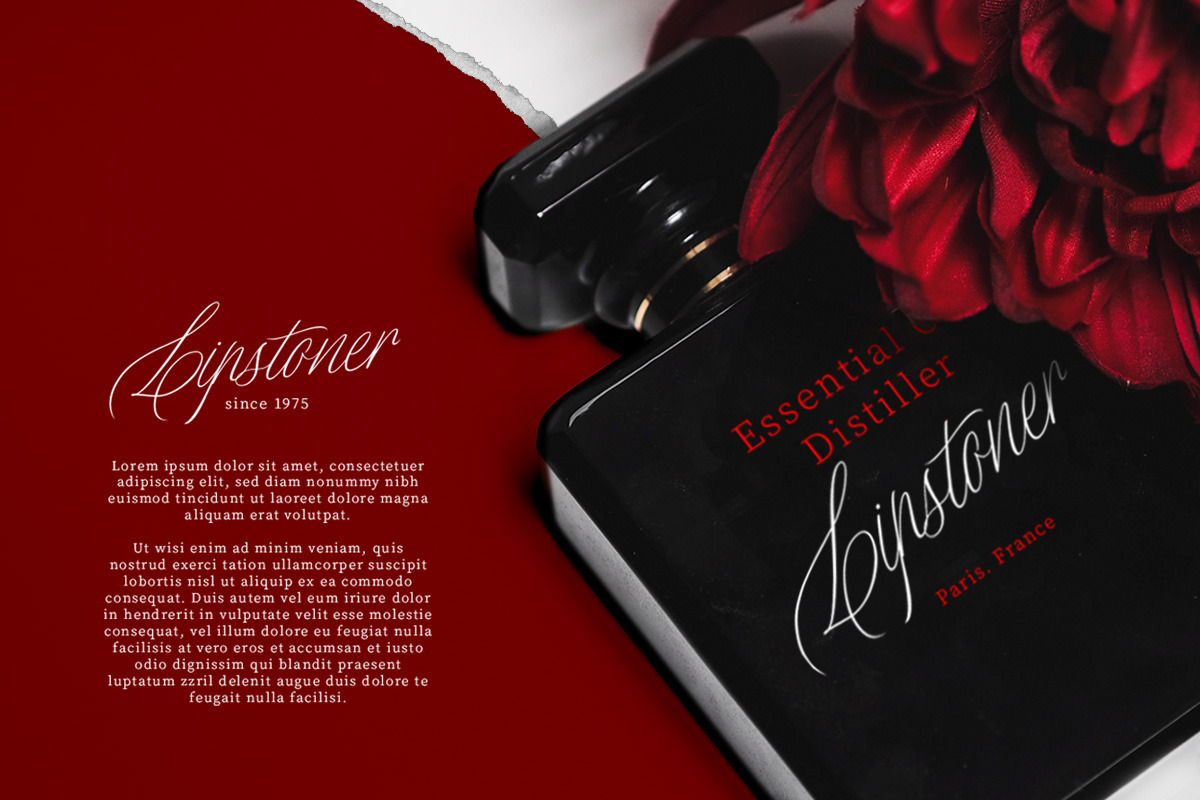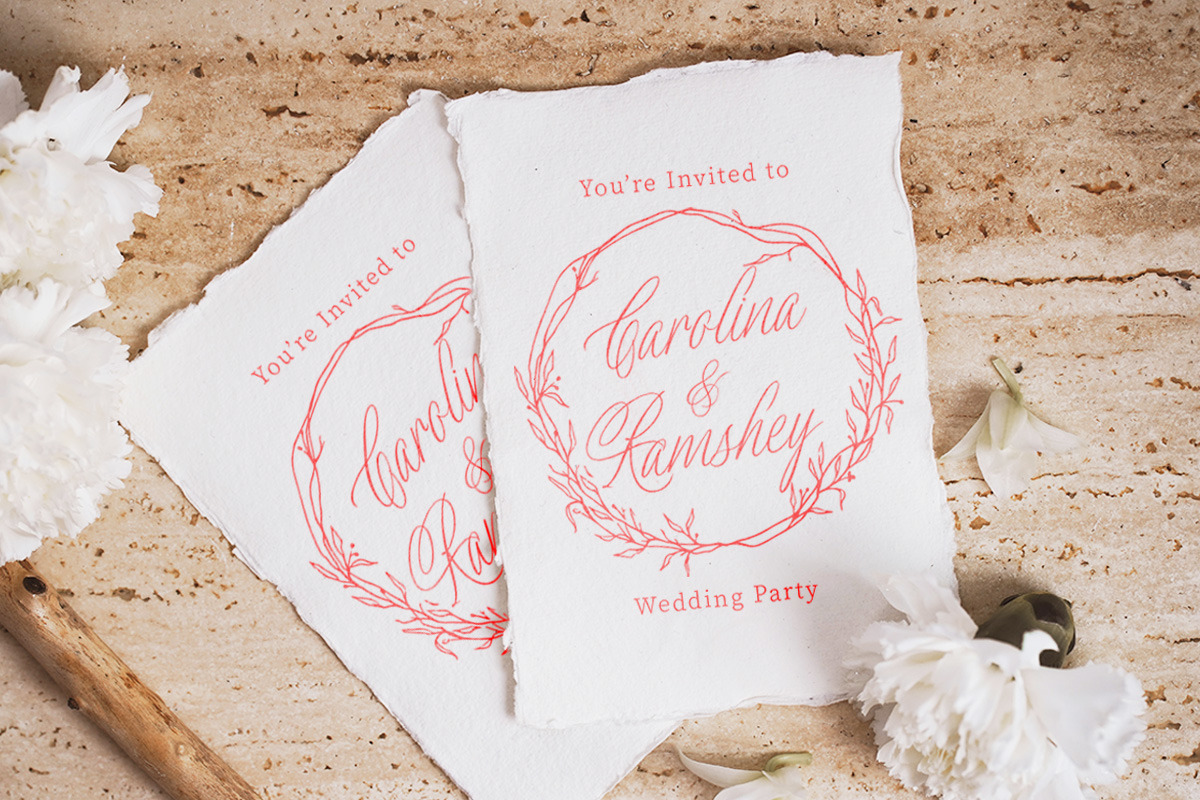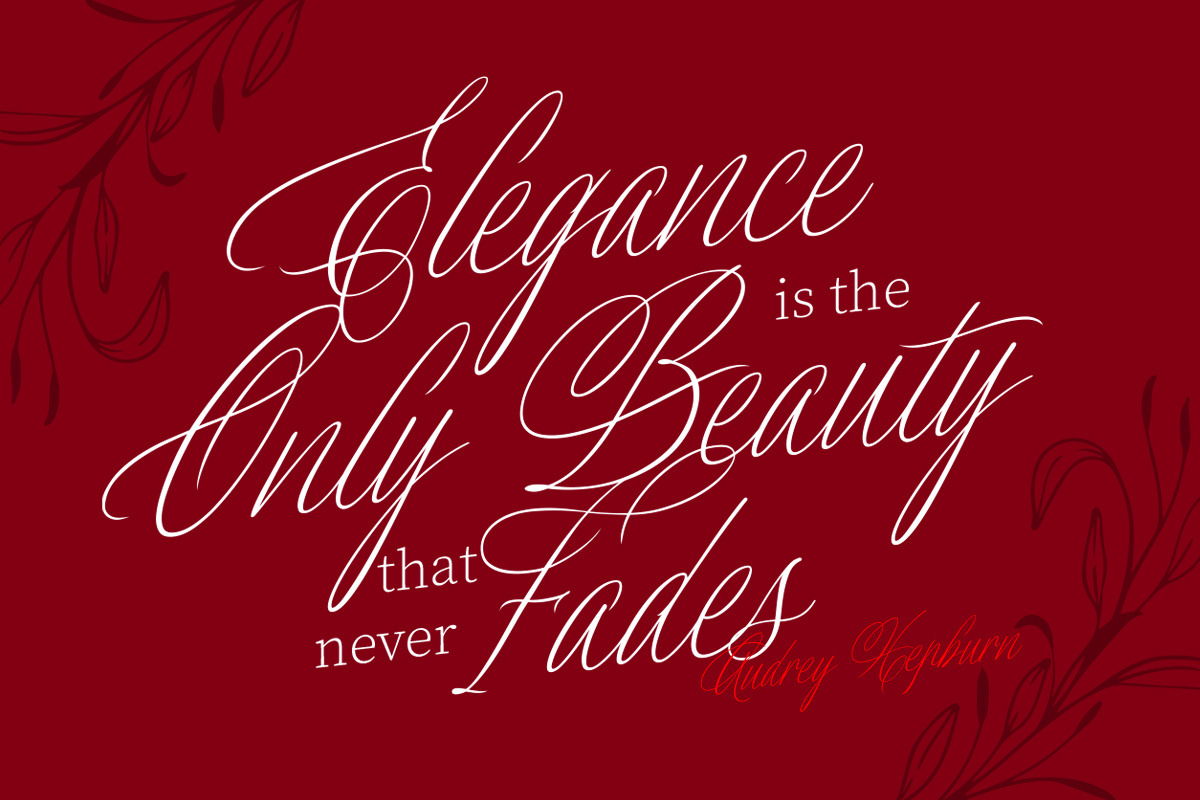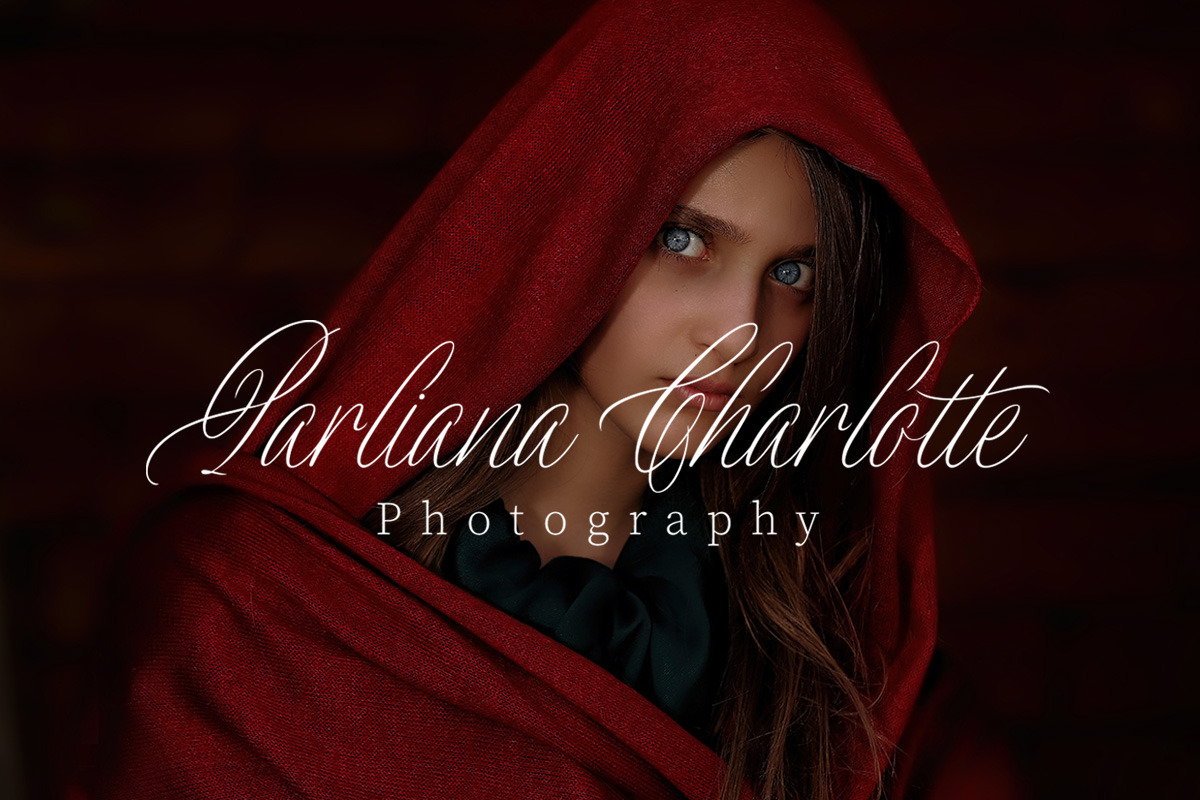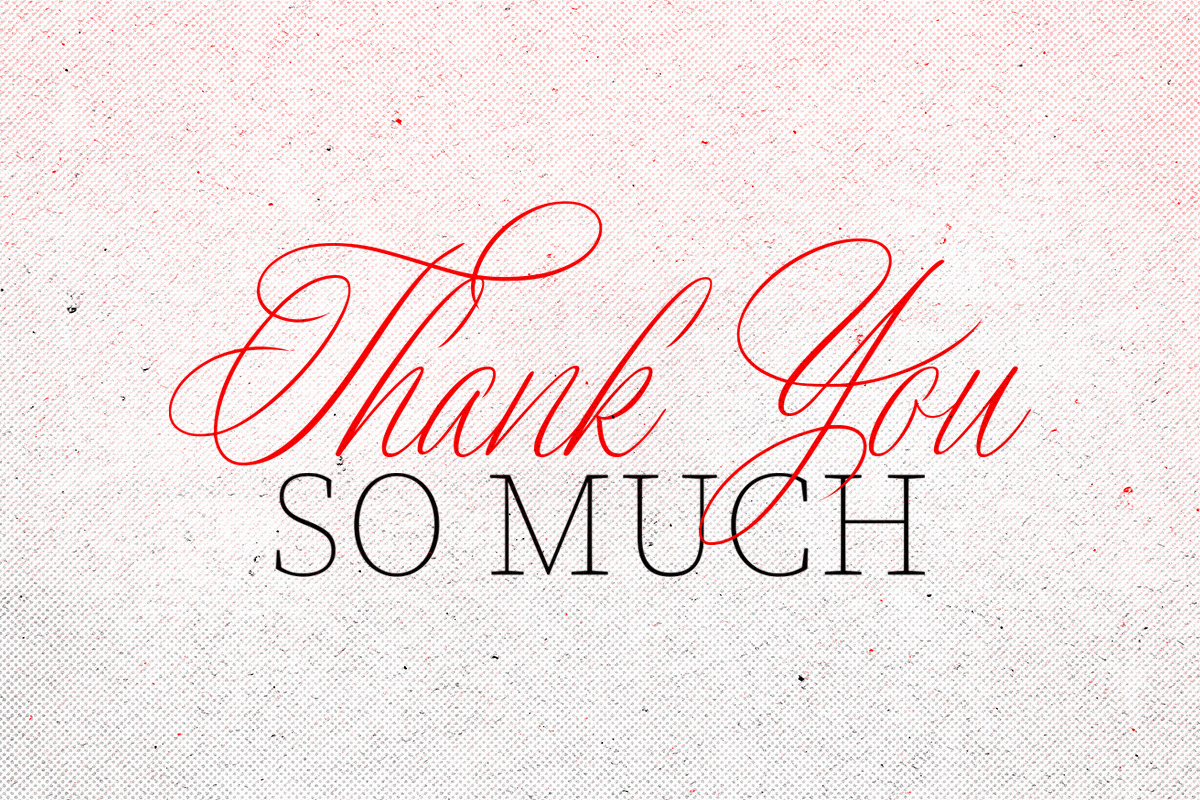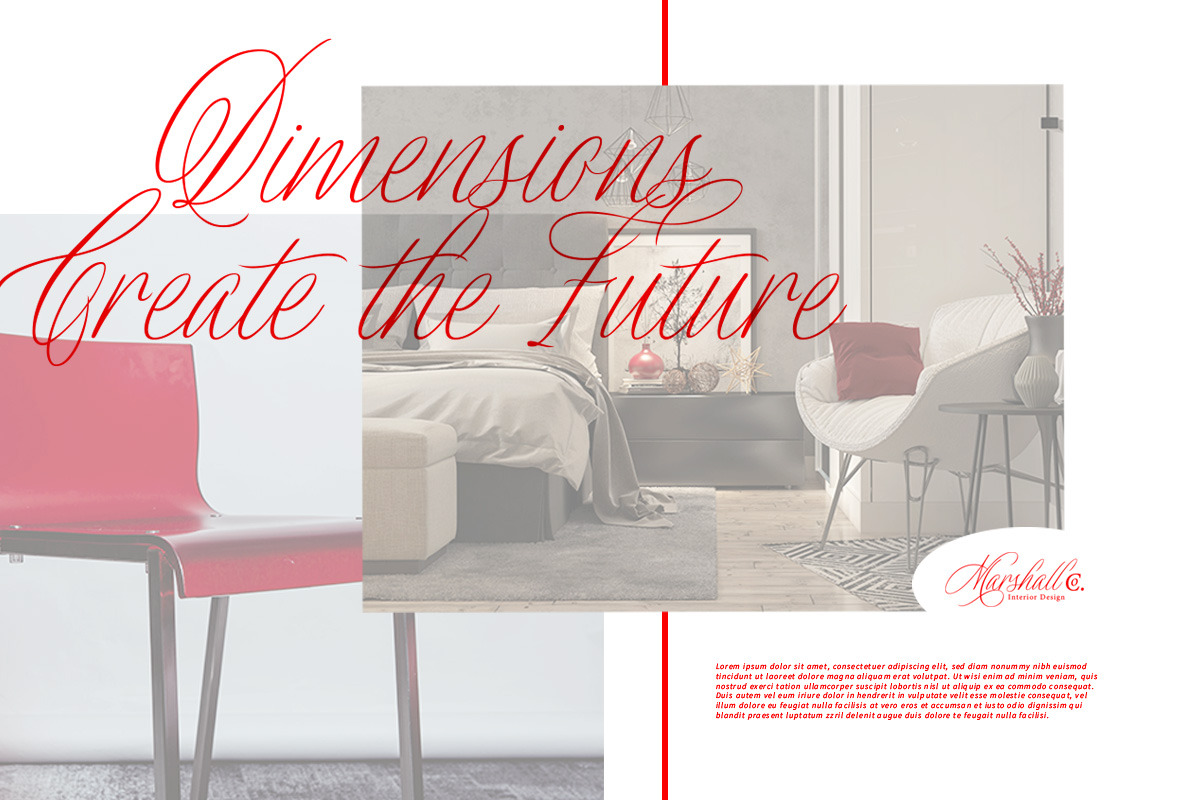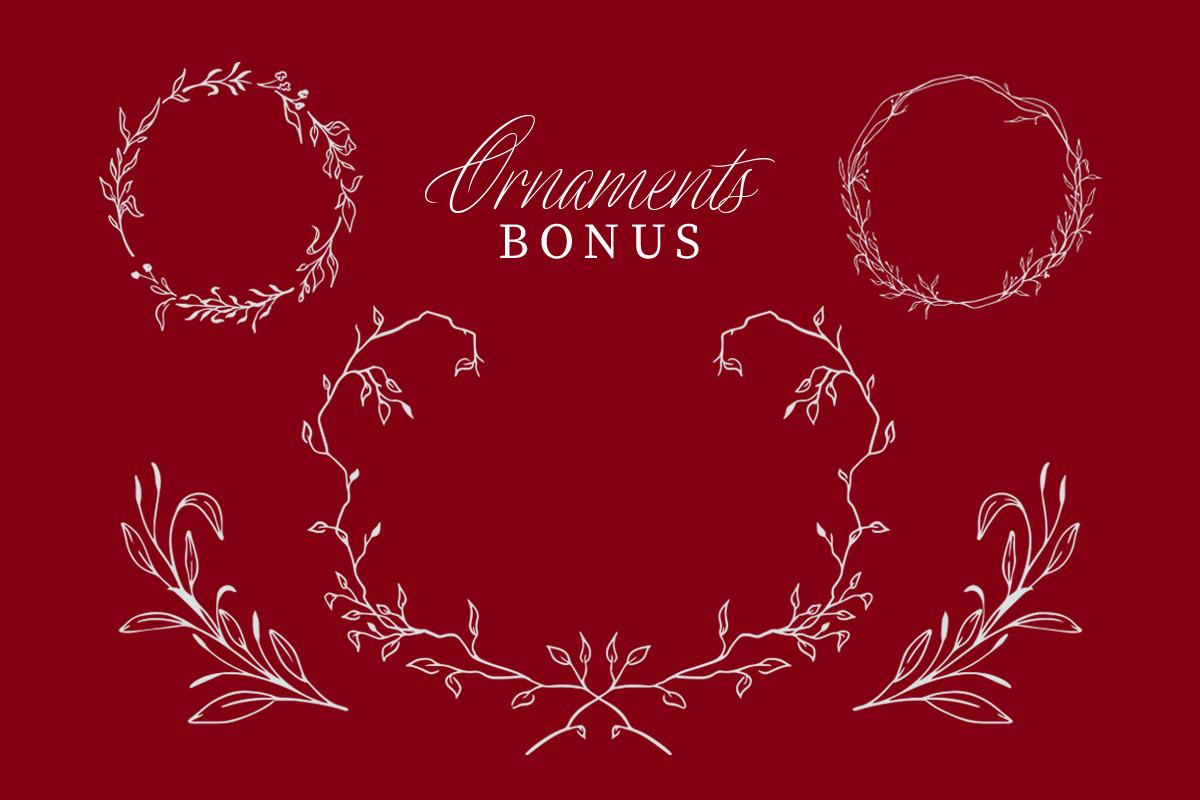
Distoniare - Pretty Script
Distoniare is a pretty script font based on authentic hand writing with natural signature style. This type of font perfectly made to be applied especially in logo, and the other various formal forms such as invitations, labels, logos, magazines, books, greeting / wedding cards, packaging, fashion, make up, stationery, novels, labels or any type of advertising purpose.
- alternates and ligatures
- swashes
- free ornament vector